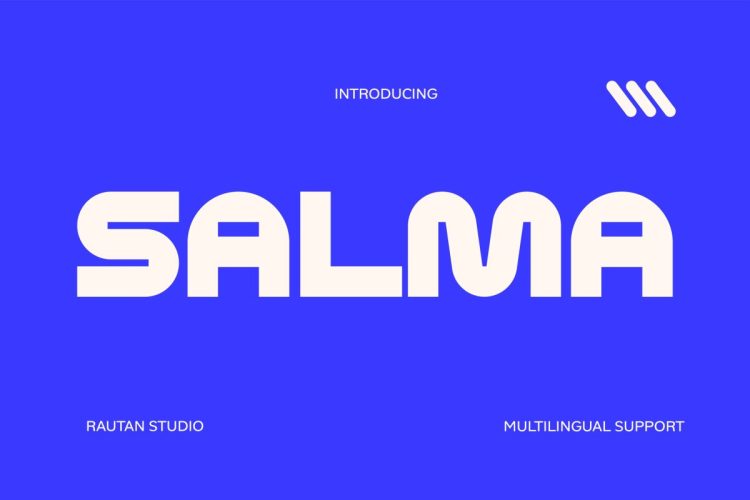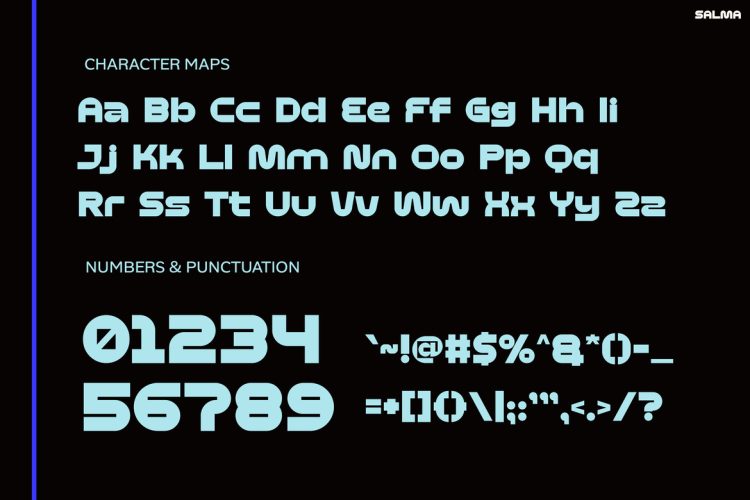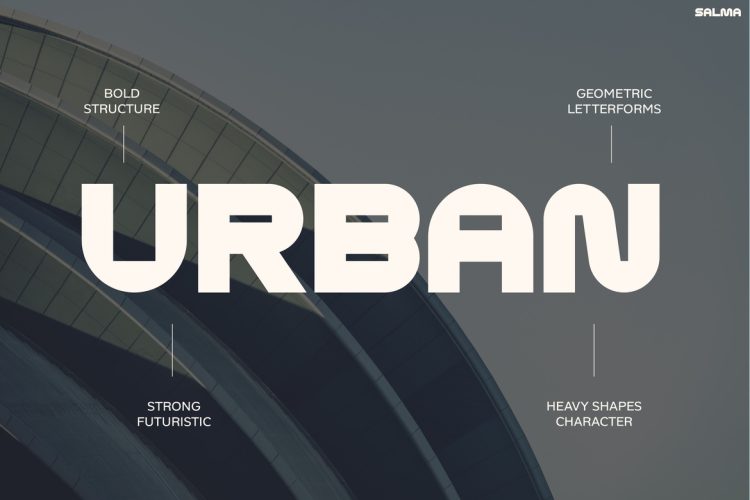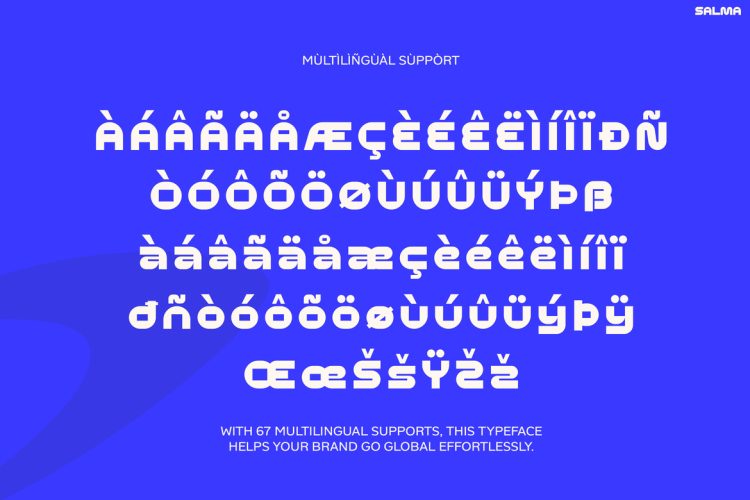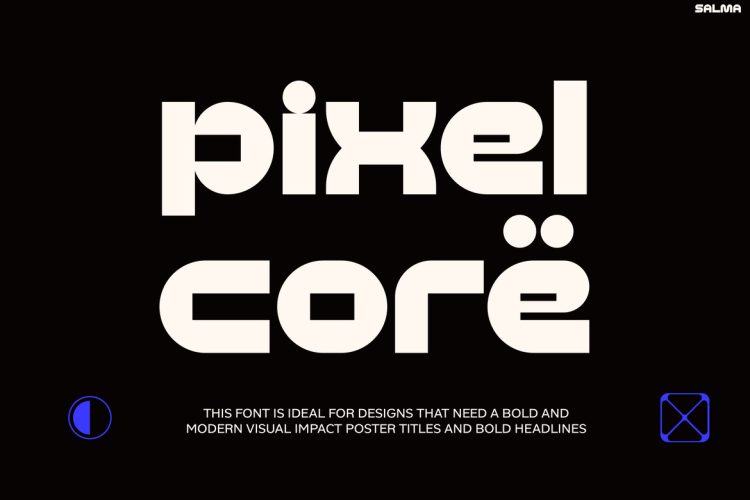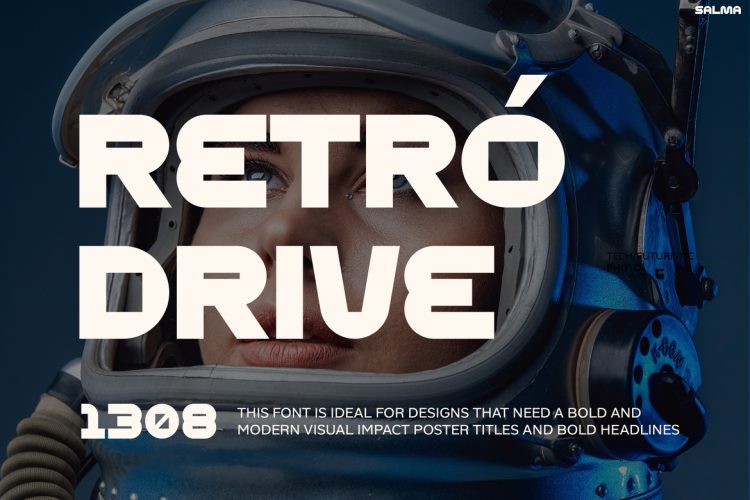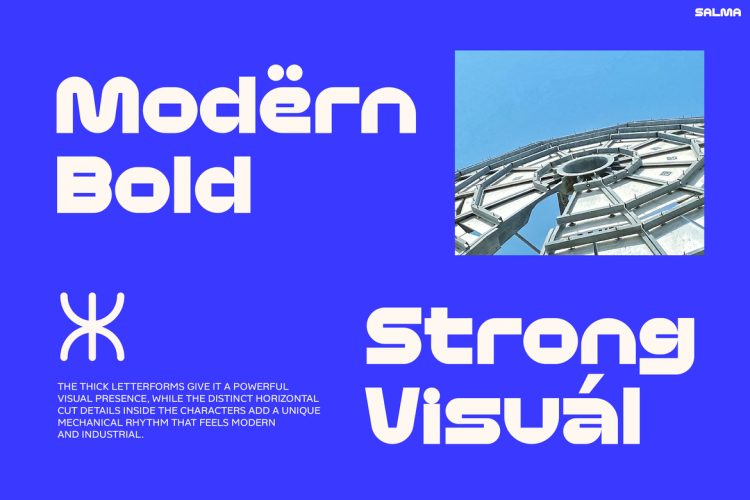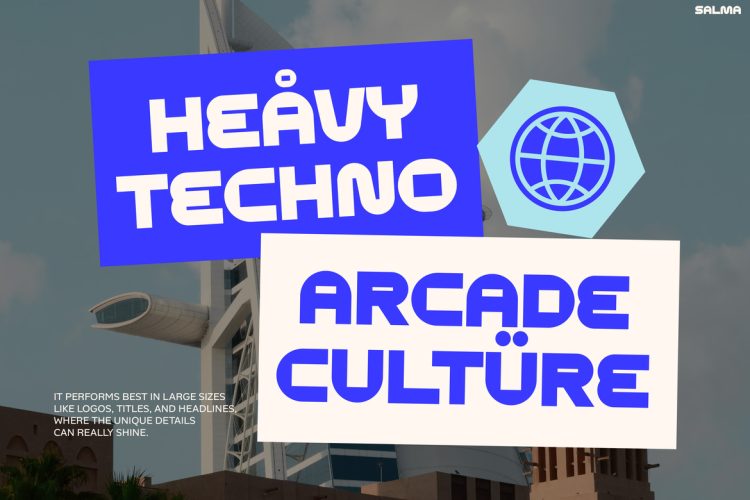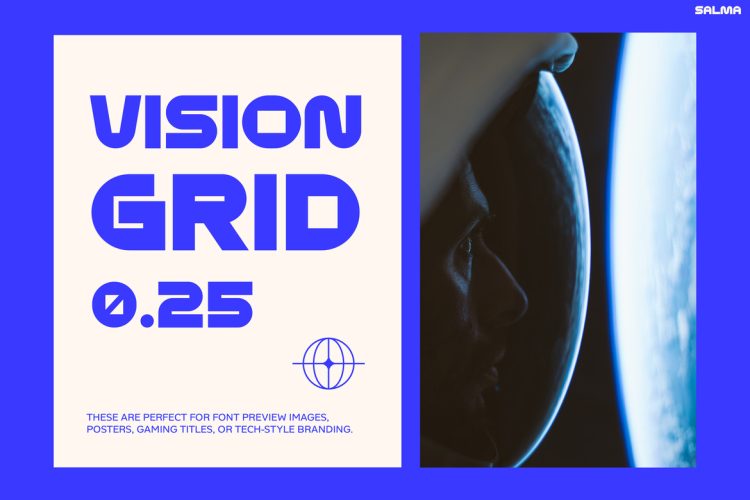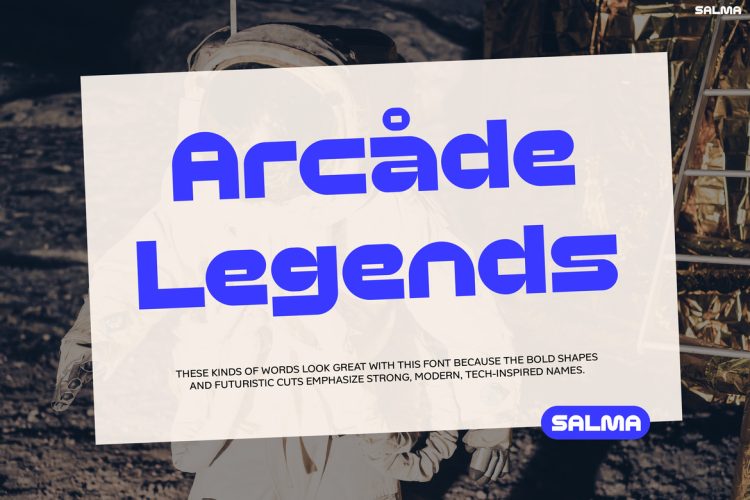
Future Arcade Power โ Instagram Font Salma
Instagram Font Salma delivers a bold futuristic style that instantly grabs attention. Inspired by arcade culture, digital grids, and modern techno design, this display font combines strong geometric shapes with smooth rounded corners. As a result, it creates a powerful visual identity that feels both retro and futuristic. The thick strokes and compact letterforms give every headline a striking presence. Moreover, the clean structure keeps text readable while maintaining a strong visual impact. Because of this balance, Instagram Font Salma works perfectly for designs that need bold personality and modern energy.
Furthermore, this font transforms simple text into eye-catching visual graphics. It stands out beautifully on posters, social media layouts, and digital branding materials. In addition, its futuristic shapes create a modern arcade atmosphere that feels nostalgic yet fresh. With support for 67 languages, designers and creators around the world can build strong global designs with consistent style and clarity.
Moreover, Salma performs exceptionally well in large headlines and graphic layouts. For example, it is perfect for gaming posters, technology branding, and futuristic marketing visuals. In addition, it works beautifully for digital content such as YouTube thumbnails, Instagram graphics, and modern advertisements. The bold weight makes designs stand out instantly. Meanwhile, the smooth shapes maintain visual harmony and clarity.
Instagram Font Salma is ideal for graphic designers, game developers, branding studios, and digital creators. It is especially suitable for gaming graphics, arcade posters, futuristic logos, technology branding, merchandise design, and social media campaigns. Additionally, it works perfectly for bold typography in modern marketing and creative visual projects.